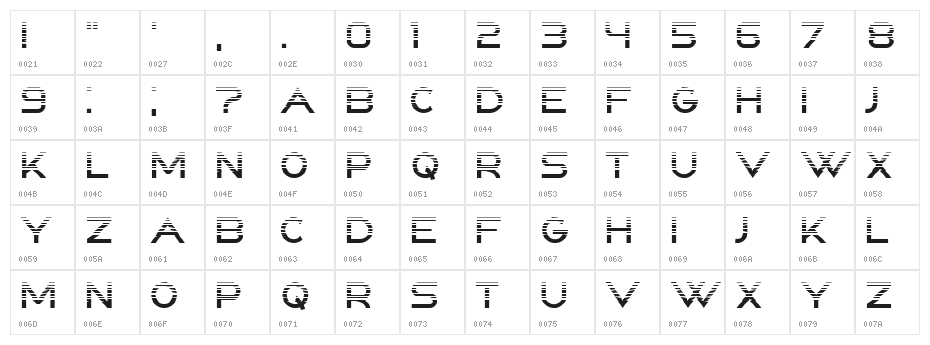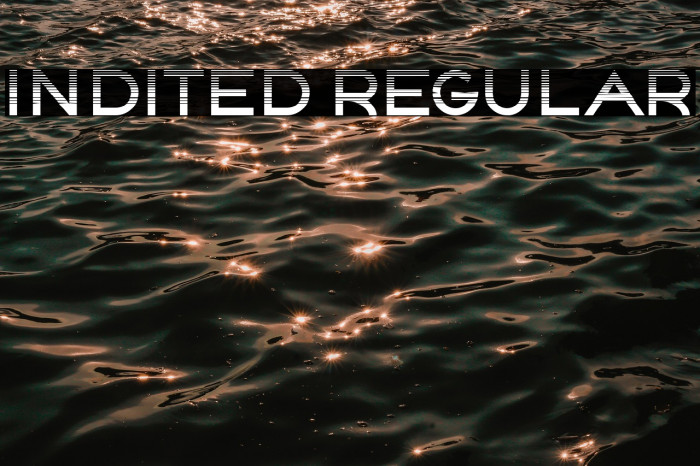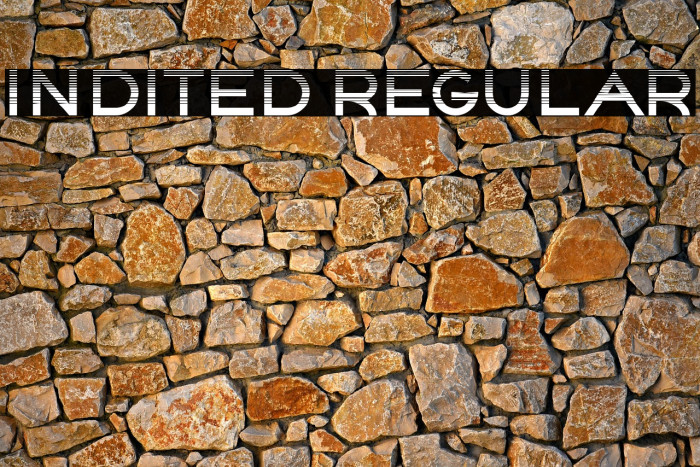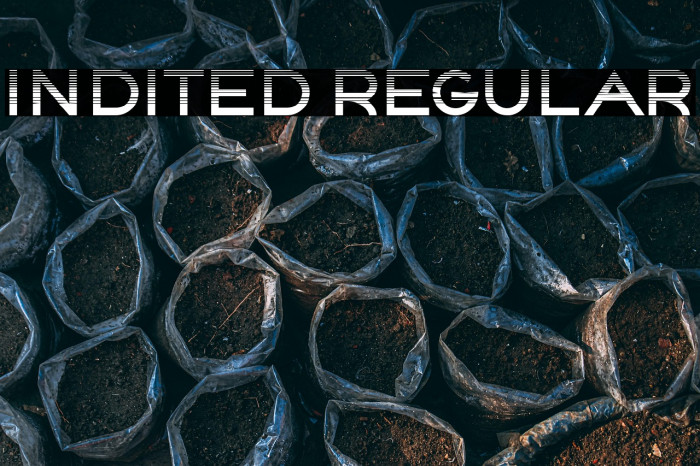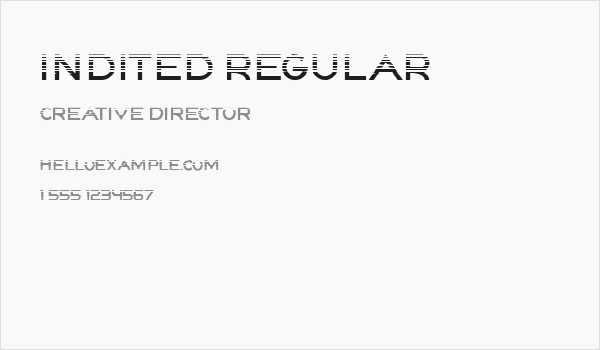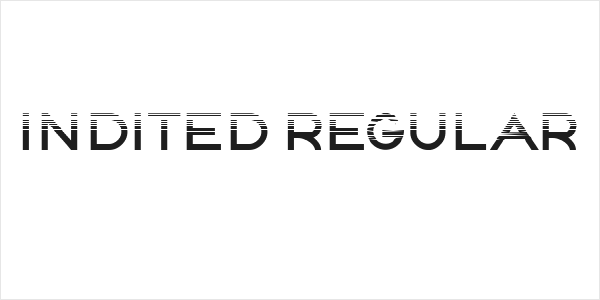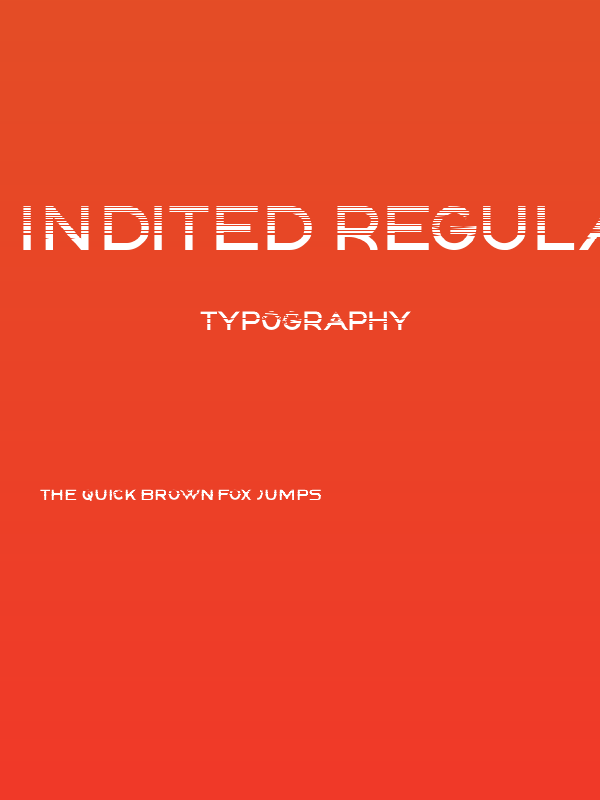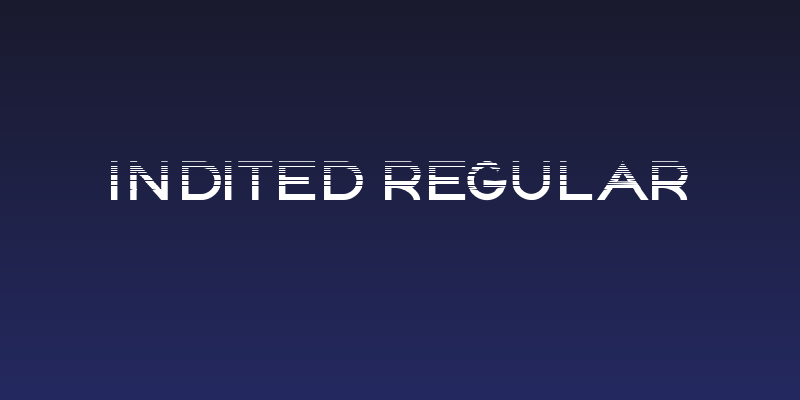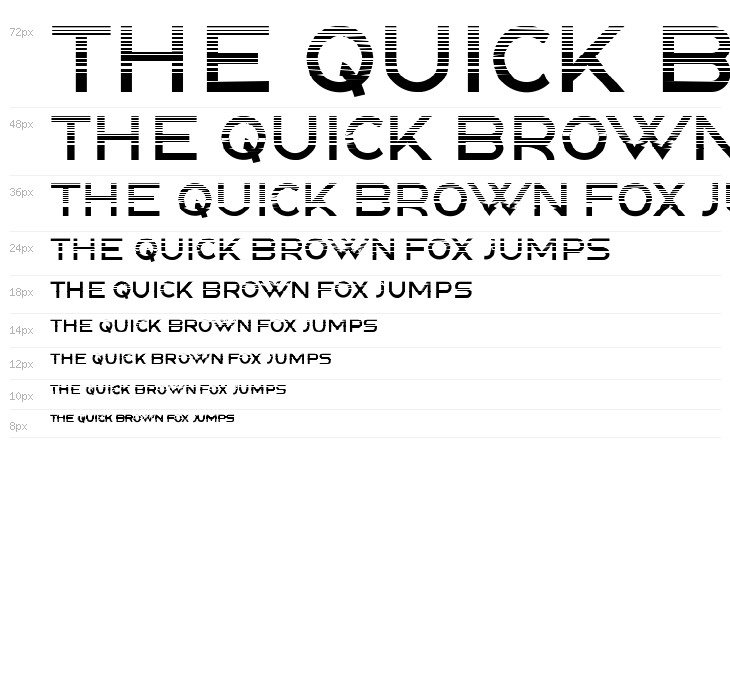
Indited Regular Font
Indited Regular Description
This font features a modern, futuristic design with a unique striped pattern running horizontally across each character. The uppercase letters are bold and geometric, with sharp angles and clean lines. The numbers and special characters follow the same stylistic approach, maintaining consistency throughout. The font's distinct style makes it stand out, offering a visually striking appearance that is both contemporary and edgy.
| Proposed Projects | Ideal for tech-related branding, futuristic posters, digital art projects, and innovative product packaging. |